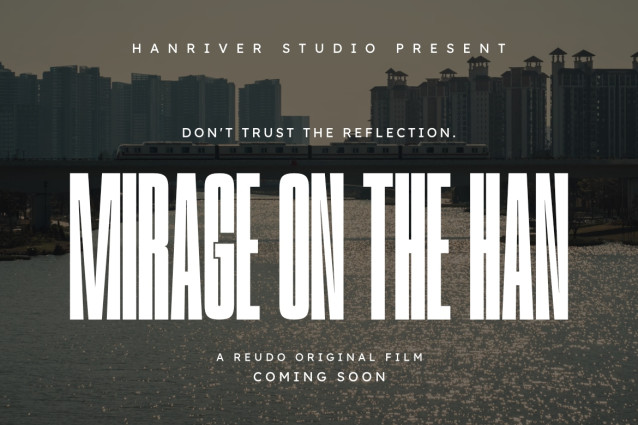
Furuko is a highly distinctive, bold, and modern condensed sans serif font, engineered to bring an elegant editorial presence, tall space-saving geometry, and a premium display aesthetic to contemporary graphic layouts. Featuring an elongated vertical profile, heavy block proportions, and unique sharp inner notch cutouts contrasted with smooth outer curves, Furuko introduces a sophisticated cinematic identity, high-end magazine presence, luxury cosmetic branding, and prominent digital media presentation designed to claim absolute visual focus.
This font family is the ultimate choice for creative directors, publication designers, and luxury agency brand managers looking to implement a robust typography identity for major text hierarchies. Whether you are developing bold corporate enterprise logotypes, high-fashion editorial covers, premium fragrance and cosmetics packaging, cinematic movie title sequences, architectural showcase headers, or prominent digital web banners, Furuko stands out with supreme legibility and commanding structural confidence.
- Modern Condensed Display Structure: Optimized with a narrow horizontal footprint and tall vertical proportions for elegant, high-impact title compositions.
- Sophisticated Notch Geometry: Heavy block lines accented with distinctive sharp inner cutouts and smooth outer curves crafted to secure instant audience attention.
- Cinematic & Editorial Aesthetic: Refined narrow proportions ideal for high-end magazine layouts, beauty product campaigns, architectural branding, and indie film titles.